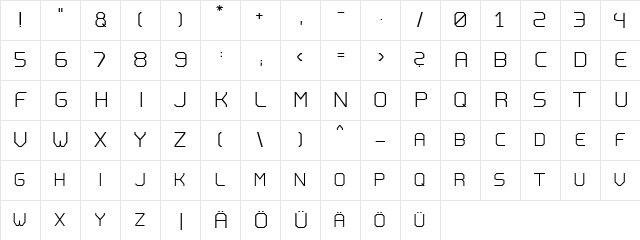
Boodas.de | My | Regular Font Preview
Boodas.de | My | Regular Regular
Boodas.de | My | Regular Font Details
Design Context for Boodas.de | My | Regular Typeface
Boodas.de | My | Regular offers clean, dependable letterforms without strong stylistic allegiance, making it a practical choice for designers who need flexibility.